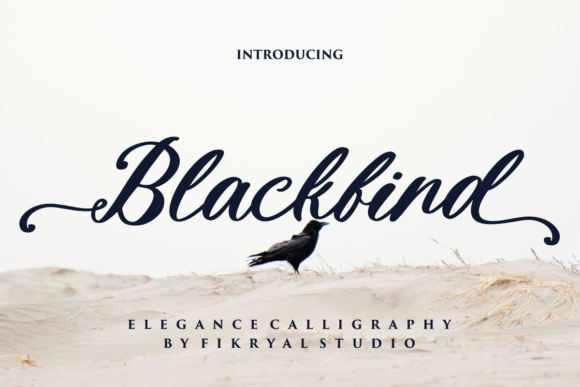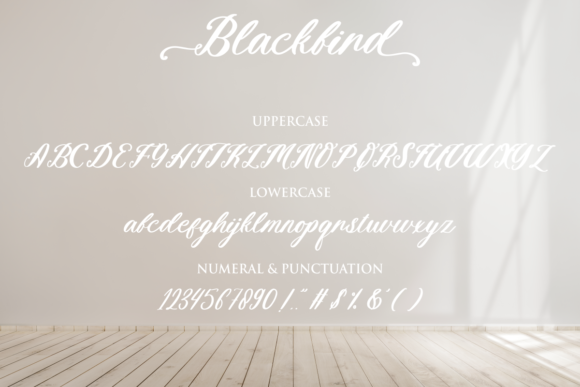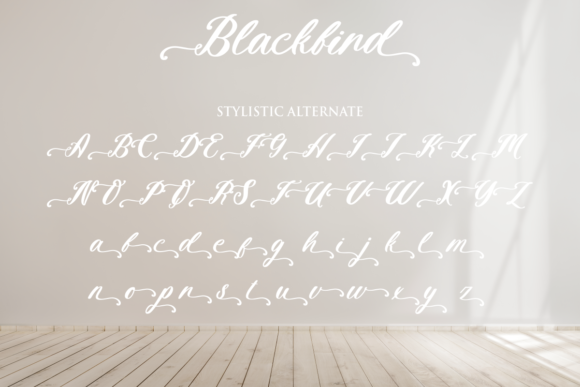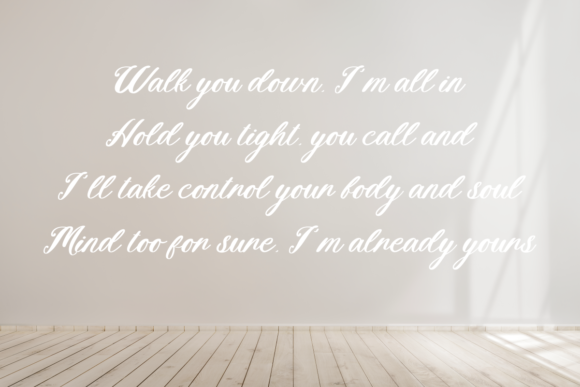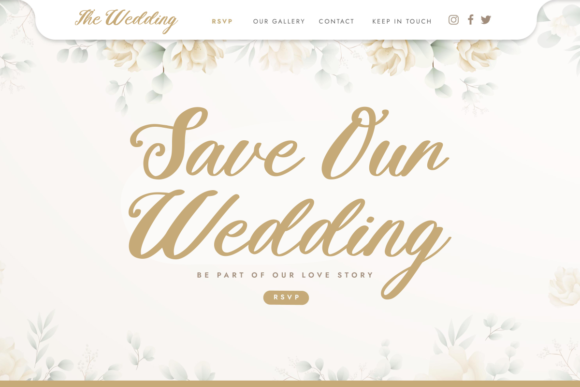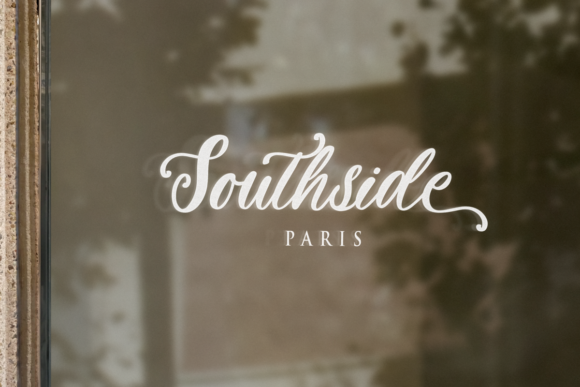
Blackbird Font
About Blackbird Font
Blackbird is a beautiful, assertive and cursive script font. It looks stunning on wedding invitations, thank you cards, quotes, greeting cards, logos, business cards and every other design which needs a handwritten touch.